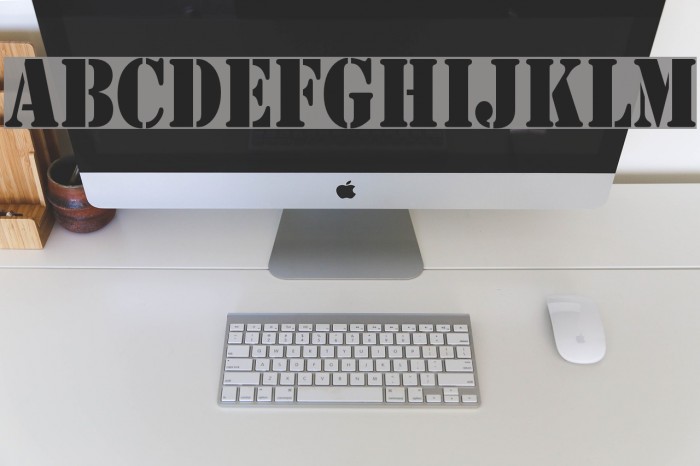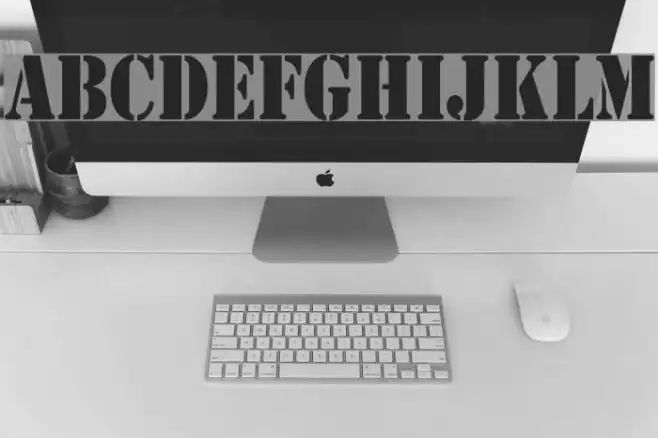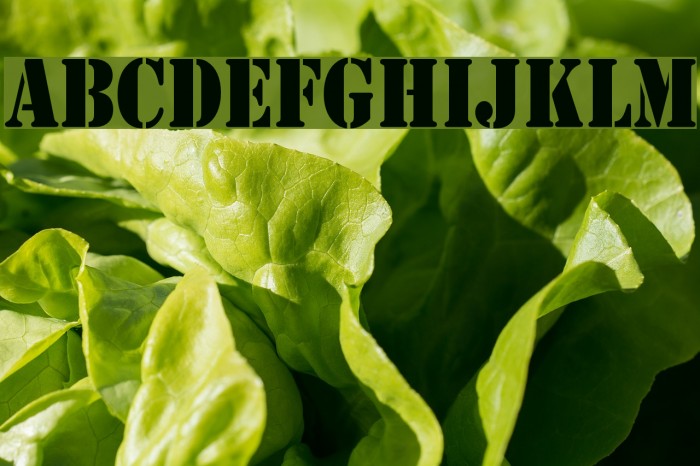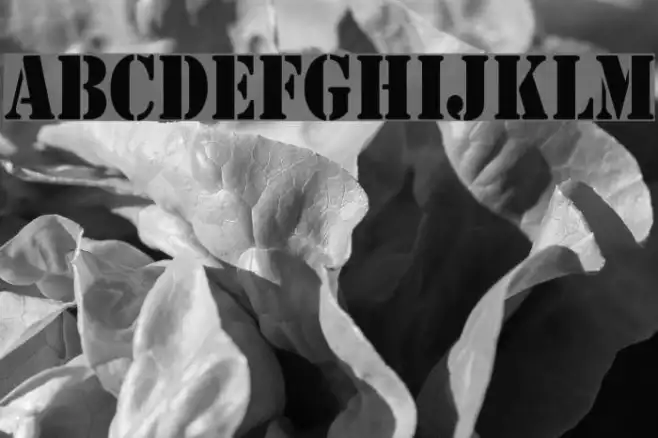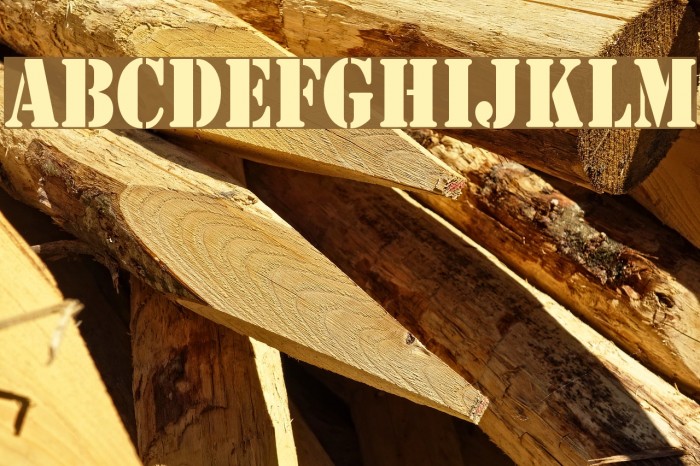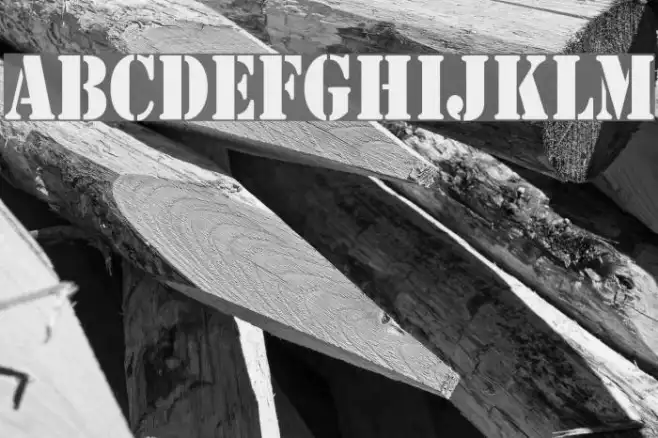
Army Thin Font
Army Thin Description
This font features a bold, stencil-like design with strong, angular serifs and a military-inspired aesthetic. The characters are robust and impactful, with a distinct cut-out style that adds a sense of ruggedness and authority. The uppercase letters are particularly striking, with a uniform height and width that convey strength and stability. The numbers and special characters maintain this bold presence, making them ideal for attention-grabbing displays. The overall design is reminiscent of traditional military typefaces, yet it carries a modern twist with its clean lines and precise cuts.
| Overall Style | Modern, Military |
| Proposed Projects | Ideal for military-themed designs, posters, signage, and branding that requires a bold, authoritative presence. |